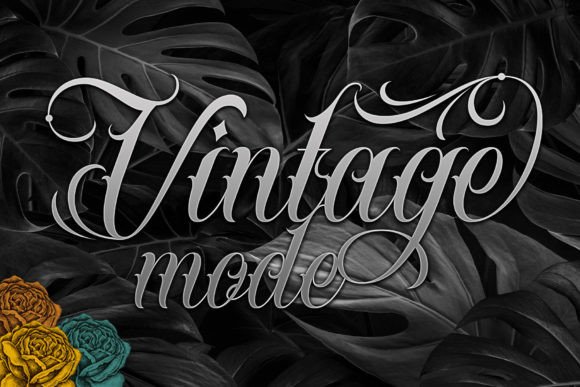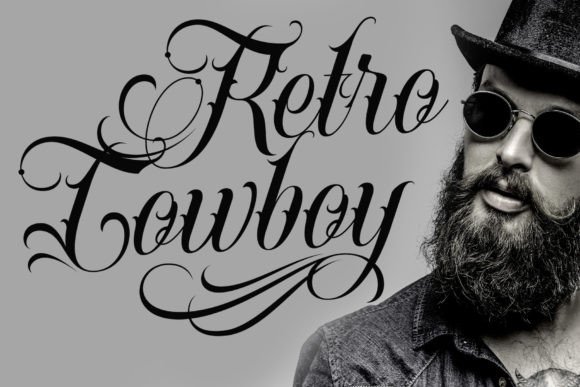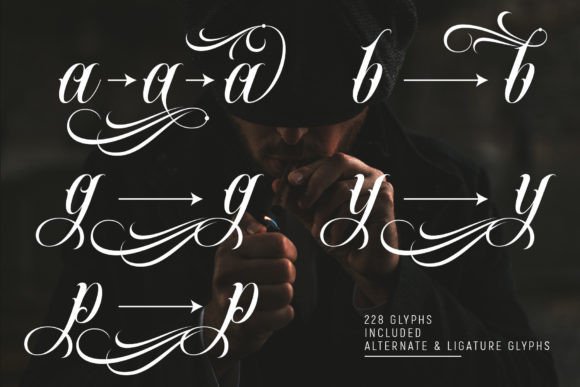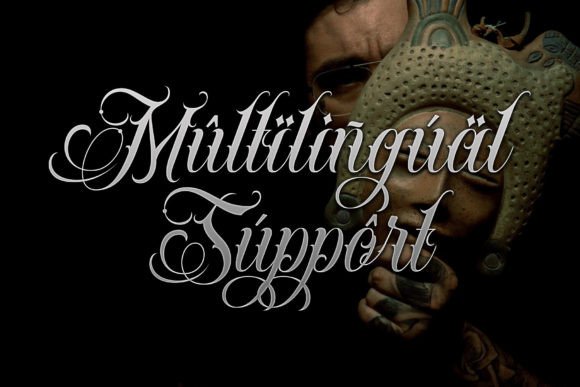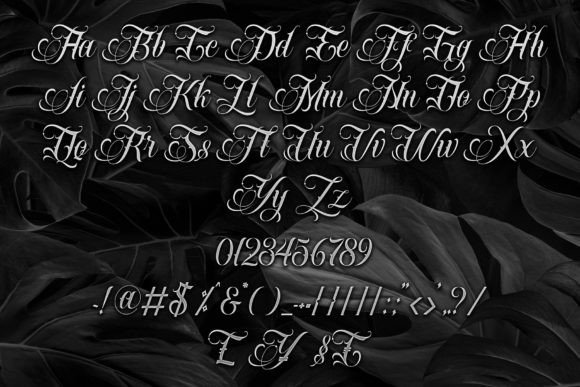
The Perfect Brush Stroke for Your Next Design
You know that moment when you’re brainstorming ideas for your next project and you stumble upon the perfect font to bring it all together? It’s like the universe has aligned, and everything just clicks into place. For me, that moment often happens when I’m working with a bold, eye-catching font that makes my design truly stand out. And that’s exactly what the Bougenville Font is all about – adding a touch of sophistication and elegance to your projects with its unique blackletter style.
Bougenville Font is a versatile font that can be used in a variety of creative applications, from logos and t-shirt designs to posters and flyers. Its confident and modern design makes it the perfect choice for adding a professional touch to your brand identity. Whether you’re a seasoned designer or just starting out, Bougenville Font is a valuable addition to your toolkit, guaranteed to elevate your designs to the next level.
Bougenville Font Key Features
- Unique Characteristics: This font features a unique blend of elegance and sophistication, with subtle curves and lines that evoke a sense of refinement and luxury.
Bougenville Font Review
I recently had the chance to work with the Bougenville Font, and I must say it’s an interesting addition to any design project. Here are my thoughts on what works well and what doesn’t.
- The Bougenville Font has a unique and elegant design that’s perfect for creating a sophisticated and luxurious feel in your designs.
- The font has a wide range of weights and styles, making it easy to customize and adapt to different design needs.
- The Bougenville Font is highly legible, even at small font sizes, making it a great choice for body text and other small-scale typography.
- The Bougenville Font may be too ornate for some design projects, making it difficult to read or understand.
- The font may not be as versatile as some other fonts, and may not work well in certain design contexts (e.g. bold, technical, or informative designs).
The Bougenville Font is a beautiful and elegant addition to any design project, but it’s not for every project. It’s perfect for creating a luxurious and sophisticated feel, but may not be the best choice for more technical or informative designs. Overall, I’d give the Bougenville Font 4 out of 5 stars – it’s a great choice for the right project, but may not be the best fit for every design need.
Getting the Most Out of Bougenville Font
To get the most out of Bougenville font, use it sparingly as a headline or title font. It’s a elegant and sophisticated font that works well in formal and professional settings. Pair it with a simple and clean font for body text to create a visually appealing design.
Bougenville font is commonly used in wedding invitations, formal event invitations, and corporate branding materials. It’s also used in magazine and newspaper headlines, as well as in book and brochure titles.